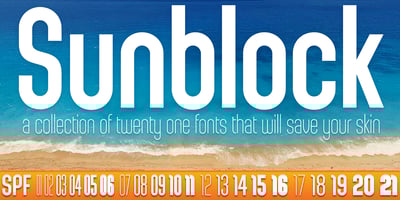
Sunblock Pro
Sunblock Pro font
Sunblock Pro Font Family was designed by Jim Lyles, Brian J. Bonislawsky and published by Grype. Sunblock Pro contains 21 styles and family package options. Clean and geometric deco sans typefaces have been used in a range of scientific publications, corporate logotypes, and beauty products over the years. However, a typeface of this style has yet to have an expansive range of widths and weights to become a design workhorse, until now. The Sunblock family finds its origin of inspiration in the Coppertone sunscreen company logo, and from there expands to type megafamily. Sunblock celebrates the rounded geometric forms of deco and bauhaus lettering through a compressed lens, transcending its brand inspired origin to give birth to a font family that pulls on modern and historical styles. It inherited its soothing tone from the limited character logotype that inspired it, and goes on to include a lowercase, small caps, and a comprehensive range of widths and weights, creating a straightforward, uncompromising collection of typefaces that lend a solid foundation and a broad range of expression for designers. Here’s what’s included with the Sunblock Collection bundle: 643 glyphs per style – including Capitals, Lowercase, Numerals, Punctuation and an extensive character set that covers multilingual support of latin based languages. (see the 7th graphic for a preview of the characters included) 21 fonts in 5 width subfamilies: Ultra Condensed, Extra Condensed, Semi Condensed, & Standard. 5 weights per subfamily (except Ultra Condensed): Thin, Light, Regular, Bold, & Black. Fonts are provided in both TTF & OTF formats. The TTF format is the standard go to for most users, although the OTF and TTF function exactly the same. Here’s why the Sunblock Collection is for you: You’re in need of a deco geometric font family with a big range of weights and widths You’re love that Coppertone letter styling, and want to design anything within that genre You’re looking for an alternative to Chalet Comprime with a more versatile range of styles You’re looking to start up your own derivative Sunscreen product line You just like to collect quality fonts to add to your design arsenal